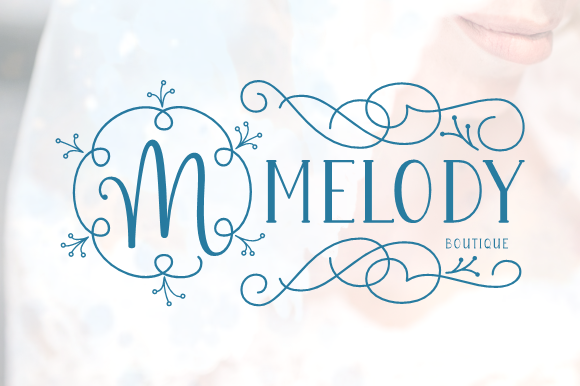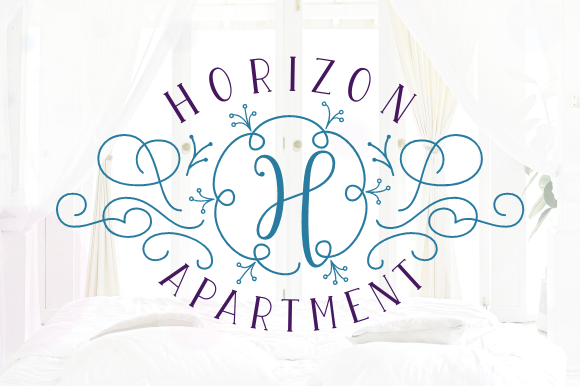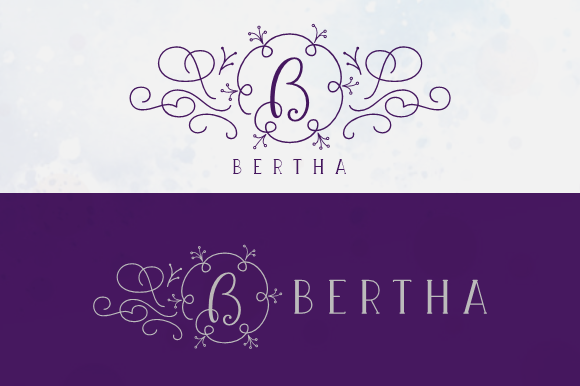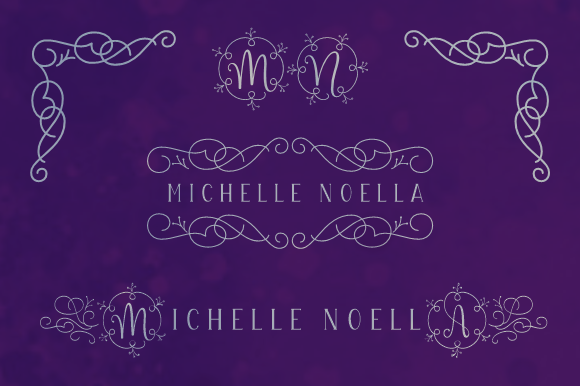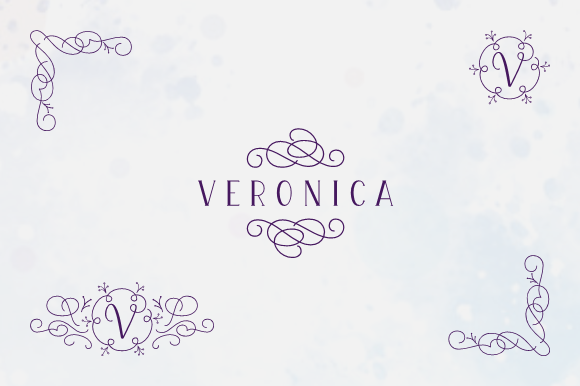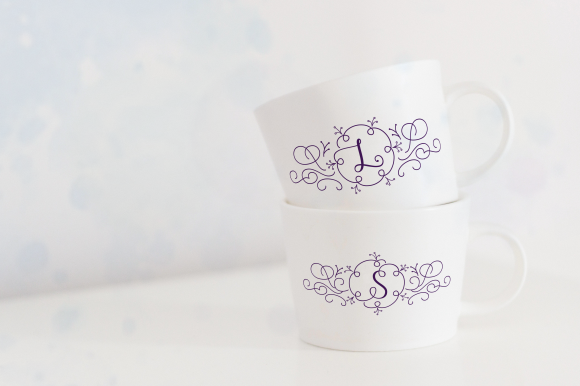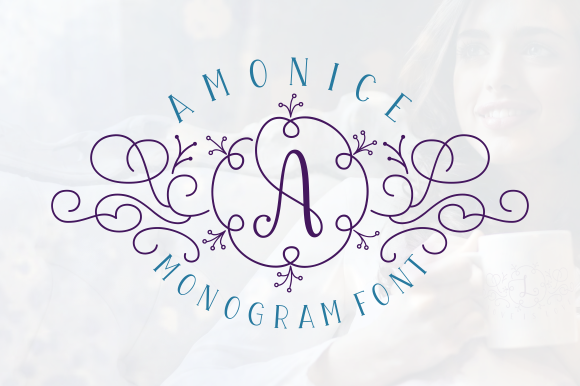
Amonice Font: Elevate Your Design with a Touch of Elegance and Playfulness
In the world of design, fonts play a pivotal role in conveying messages, evoking emotions, and creating lasting impressions. Among the myriad of fonts available, the Amonice font stands out as a stunning, playful, and charming monogram font that has captured the hearts of designers and crafters alike. Its unique blend of elegance and playfulness makes it an ideal choice for a wide range of design projects, from logos and apparel to photography, watermarks, quotes, blog headers, posters, weddings, invitations, stationery, branding, and much more.
The Allure of Amonice Font
Amonice’s allure lies in its lovely curves, which add a level of authenticity to any design project. The font’s monogram style gives it a personalized touch, making it perfect for designs that require a sense of sophistication and charm. Whether you’re working on a logo, a wedding invitation, or a blog header, Amonice font is sure to elevate your design and leave a lasting impression on your audience.
One of the key benefits of the Amonice font is its versatility. Its adaptability makes it suitable for a wide range of design occasions. Here are some of the ways you can use Amonice font to take your designs to the next level:
- Logos: Create a memorable logo that stands out from the crowd with Amonice’s unique monogram style.
- Apparel: Add a touch of elegance to your apparel designs, from t-shirts to tote bags, with Amonice’s playful and charming font.
- Photography: Use Amonice font to create stunning watermarks that add a professional touch to your photos.
- Quotes and Blog Headers: Make your quotes and blog headers more engaging and shareable with Amonice’s lovely curves and monogram style.
- Posters and Invitations: Create eye-catching posters and invitations that grab attention with Amonice font’s playful and charming aesthetic.
- Weddings and Stationery: Add a touch of sophistication and elegance to your wedding designs and stationery with Amonice’s monogram font.
- Branding: Use Amonice font to create a consistent brand identity that reflects your brand’s personality and values.
Why Designers and Crafters Love Amonice Font
Designers and crafters love Amonice font for its ease of use and versatility. The font is easy to remember, making it simple to work with and incorporate into your designs. Additionally, Amonice font’s unique monogram style and lovely curves make it a great choice for designers who want to add a touch of elegance and playfulness to their designs.
Tips for Using Amonice Font Effectively
Here are some tips for using Amonice font effectively in your designs:
- Experiment with Colors: Amonice font looks great in a variety of colors, so don’t be afraid to experiment and find the perfect color scheme for your design.
- Play with Sizes: Amonice font can be used in a range of sizes, from small and delicate to large and bold. Experiment with different sizes to find the perfect fit for your design.
- Mix and Match: Don’t be afraid to mix and match Amonice font with other fonts to create a unique and visually appealing design.
In conclusion, Amonice font is a stunning, playful, and charming monogram font that’s easy to remember and versatile. Its lovely curves add a level of authenticity to any design project, making it perfect for a wide range of design occasions. Whether you’re a designer or crafter, Amonice font is sure to elevate your designs and leave a lasting impression on your audience.